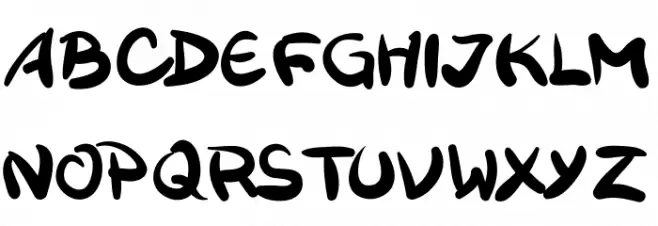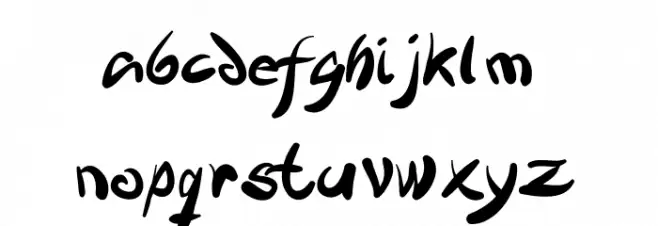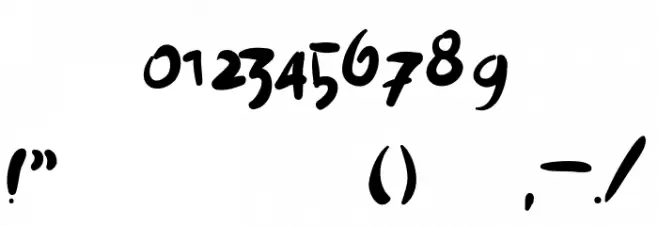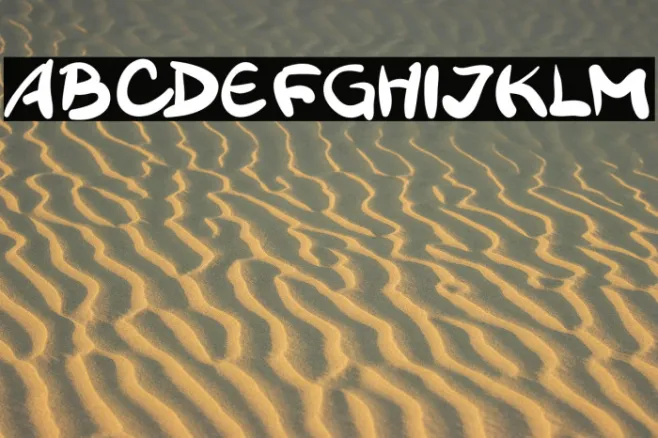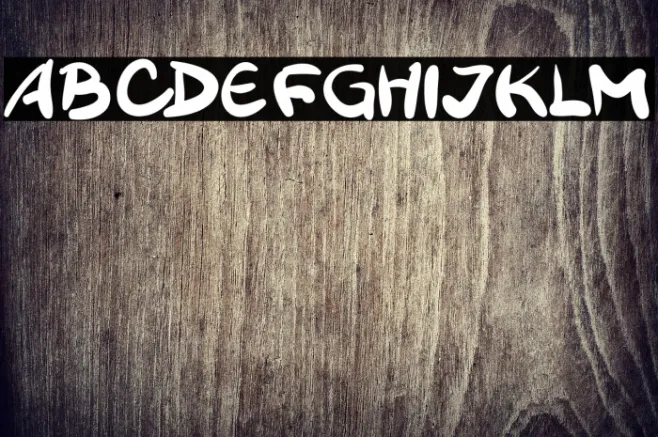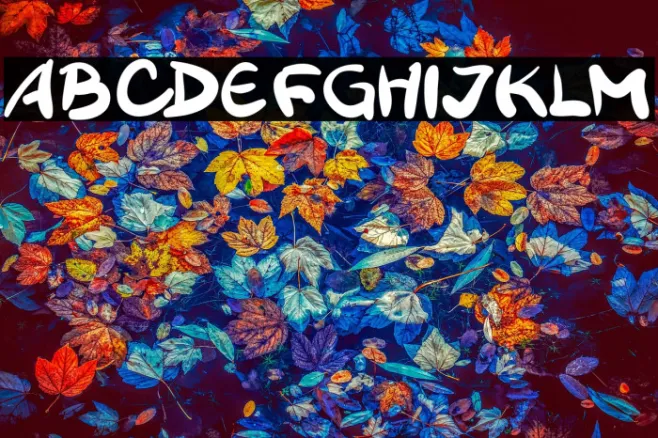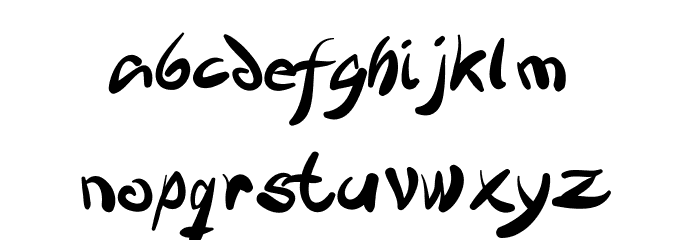
Victualia Font
Victualia Description
This font exhibits a playful and dynamic handwritten style, characterized by its bold and fluid strokes. The letters have a lively, almost brush-like appearance, with varying thickness that adds a sense of movement and energy. The uppercase letters are bold and prominent, while the lowercase letters maintain a consistent style with a slightly more relaxed form. Numbers and special characters follow the same energetic design, making the font versatile for creative uses. The overall look is informal yet stylish, suitable for projects that require a personal touch.
A bold, dynamic handwritten font with fluid strokes and playful energy.
- Proposed Projects: Ideal for greeting cards, invitations, posters, and branding projects that require a personal and lively touch.